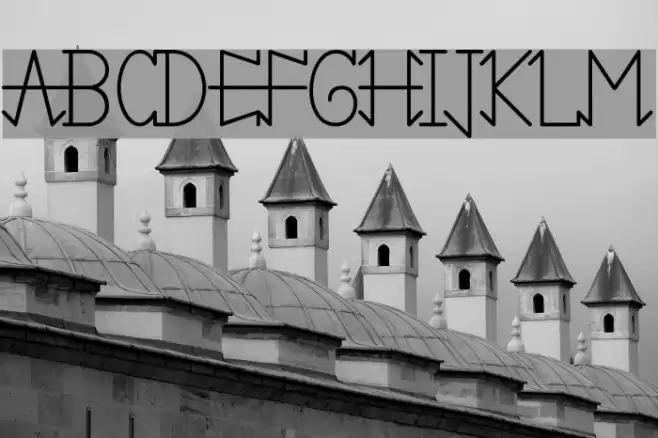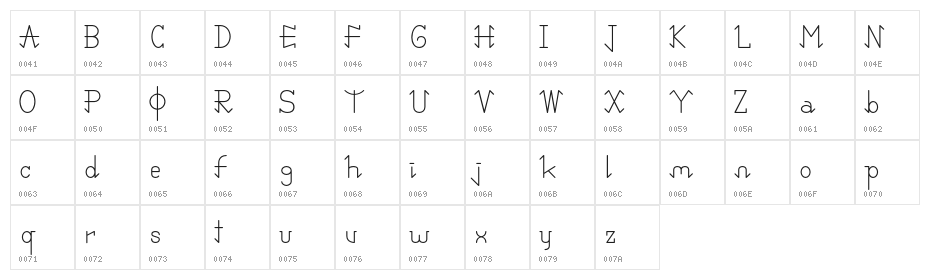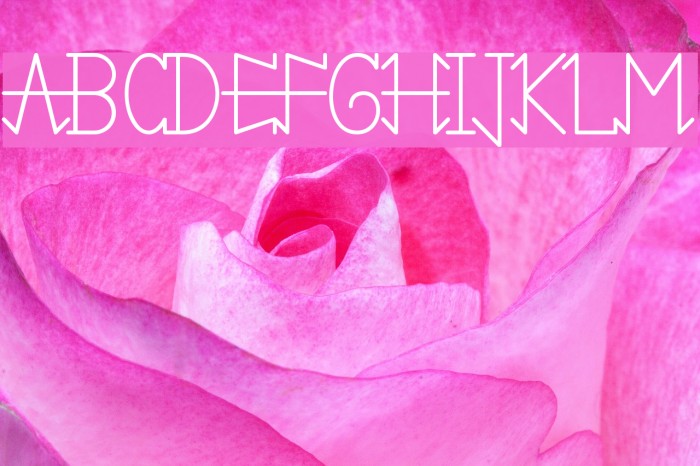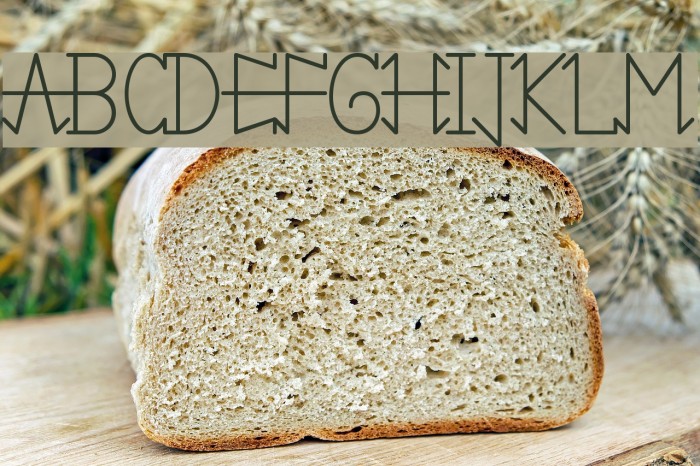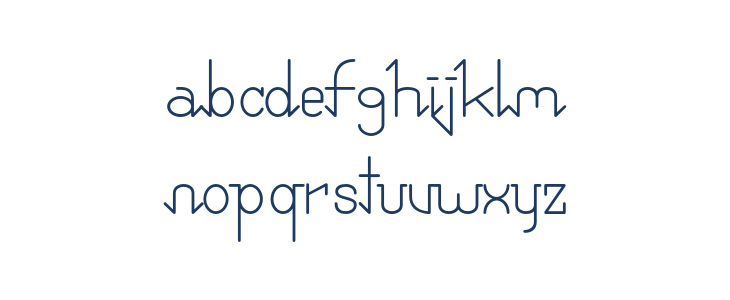
PixoDemo Font
PixoDemo Description
This font features a unique and artistic design with angular and geometric elements. The characters are constructed with sharp lines and distinct angles, creating a modern and edgy appearance. The uppercase letters exhibit a strong architectural influence, while the lowercase letters maintain a consistent style with slightly softer curves. The numerals and special characters follow the same design principles, ensuring a cohesive look across all glyphs. This font's distinctive style makes it stand out, offering a creative and unconventional approach to typography.
An angular, geometric font with a modern and artistic style from Uncategorized fonts.
- Proposed Projects: Ideal for branding, logos, posters, and any project requiring a bold, artistic statement.
- Use Case: Logos, Posters, Branding